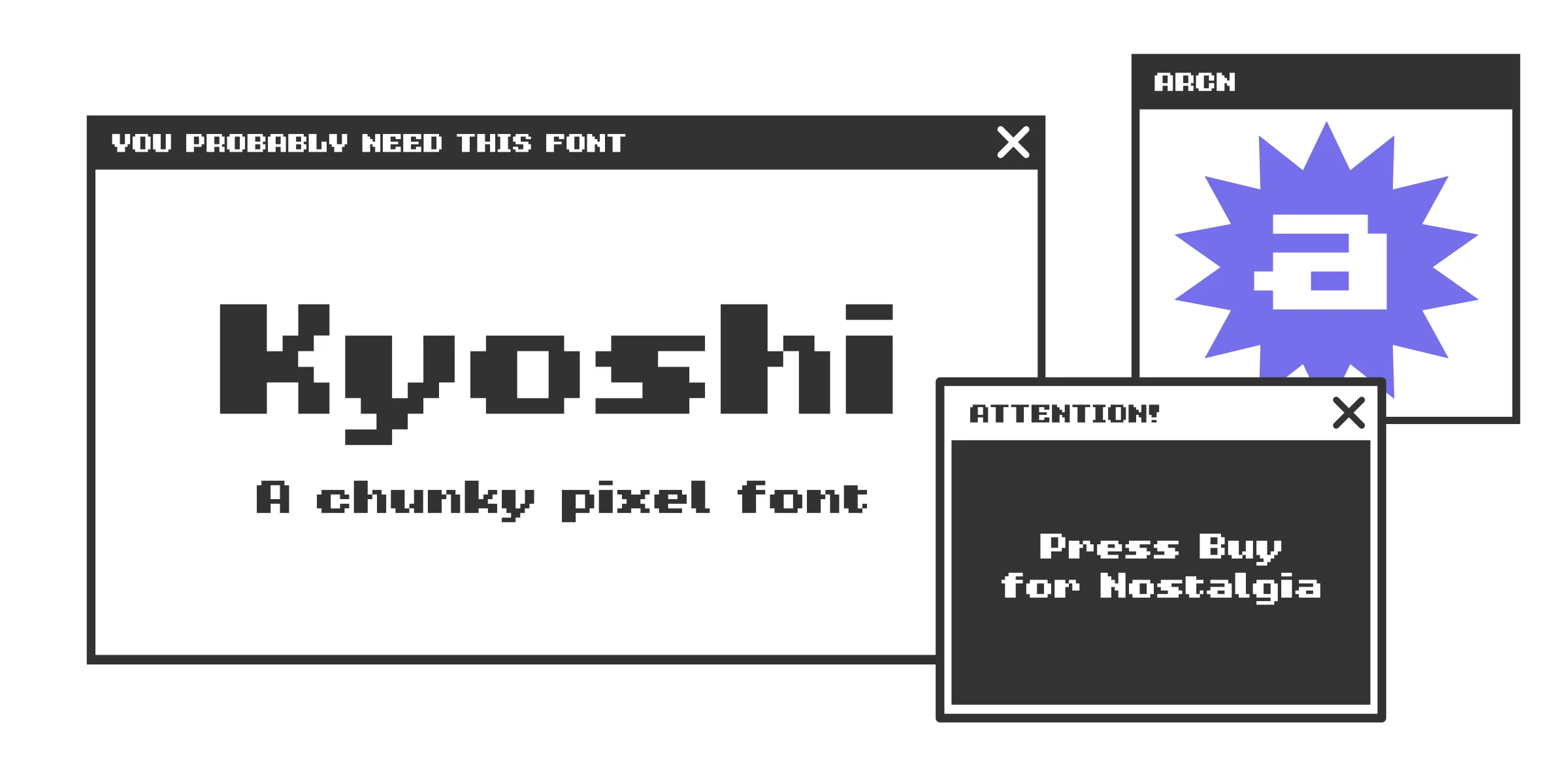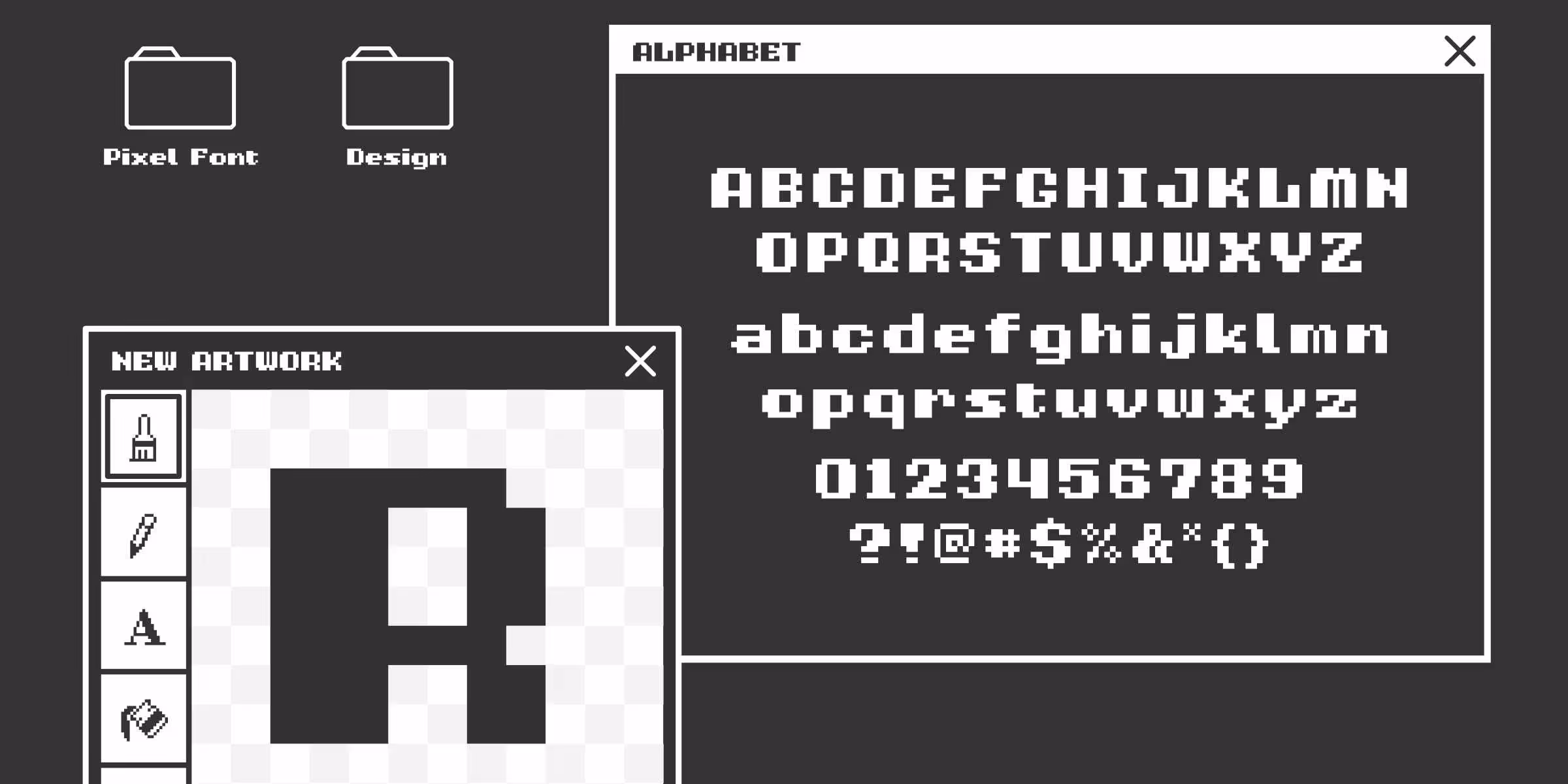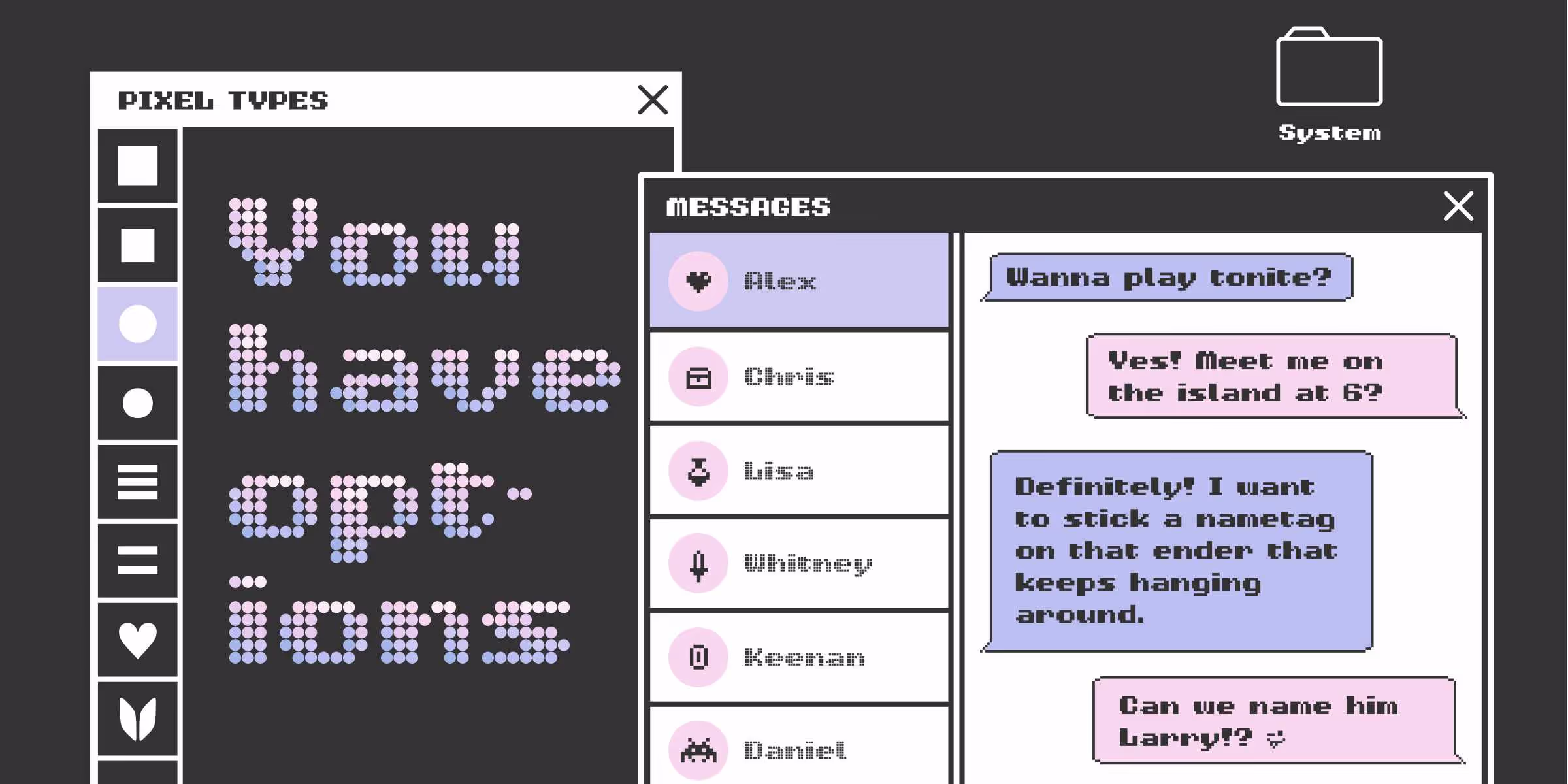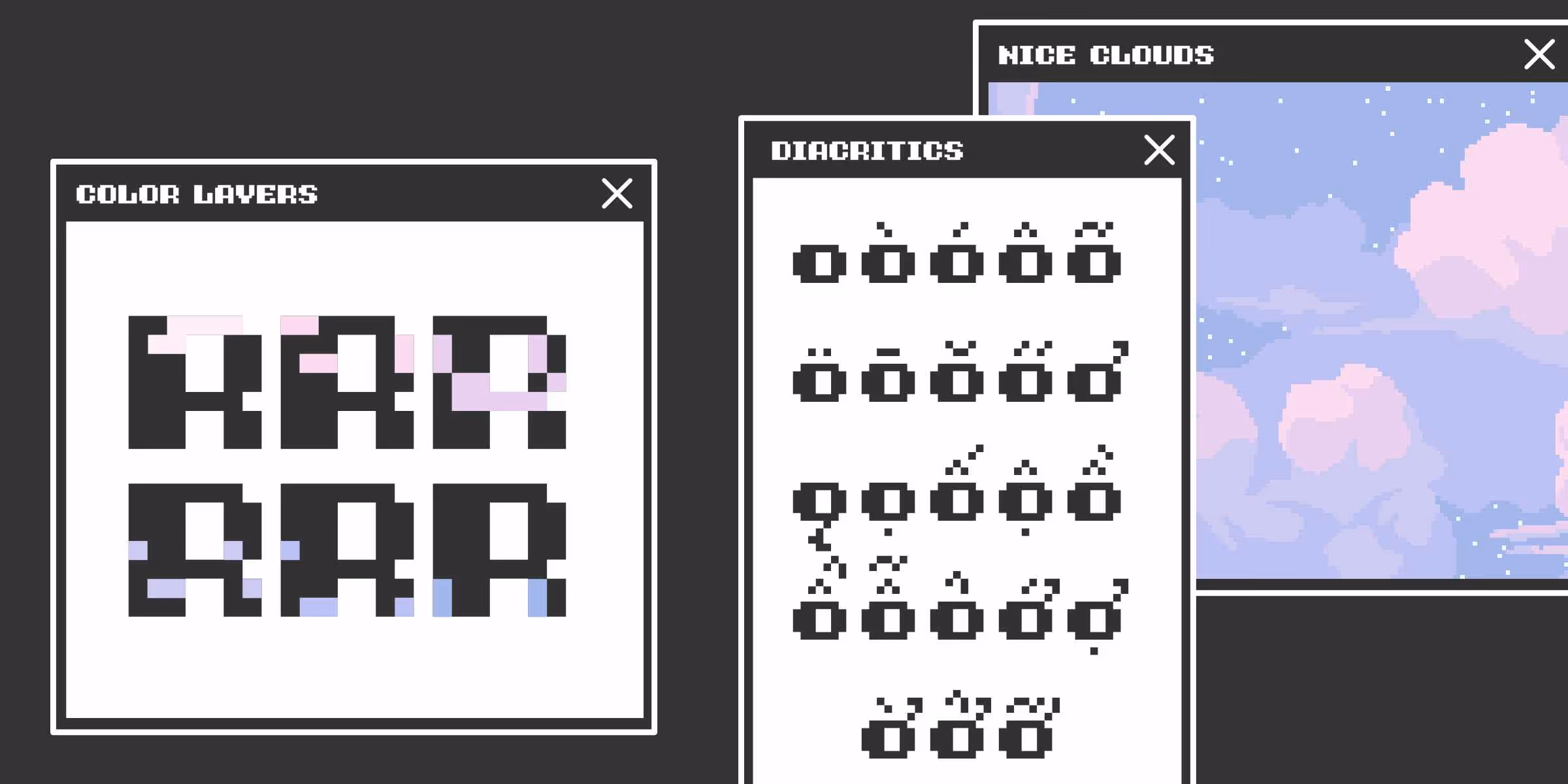
Calling all 8-bit nostalgia nerds! If you enjoy pushing pixels up, down, left, or right to avoid those colorful ghosts down at the local arcade you’re going to love this font! Kyoshi features eight different pixel styles that include classics like squares and dots but also unique styles like hearts and knits.
All of these pixel styles are available in a full-color version featuring a gradient across each letter that has a fully customizable palette. Play around with the default gamer-girl pastel, or choose your own! I recommend using DJR’s Color Font Customizer tool.
Calling all 8-bit nostalgia nerds! If you enjoy pushing pixels up, down, left, or right to avoid those colorful ghosts down at the local arcade you’re going to love this font! Kyoshi features eight different pixel styles that include classics like squares and dots but also unique styles like hearts and knits. The character set includes next-level features like fractions, math symbols, an arrow set, cute emoticons, and symbols like potions and space invaders.
Kyoshi was inspired by two existing video game typefaces, one used in the 1989 release of Sky Robo and the other from the 1993 release of Fire Barrel.